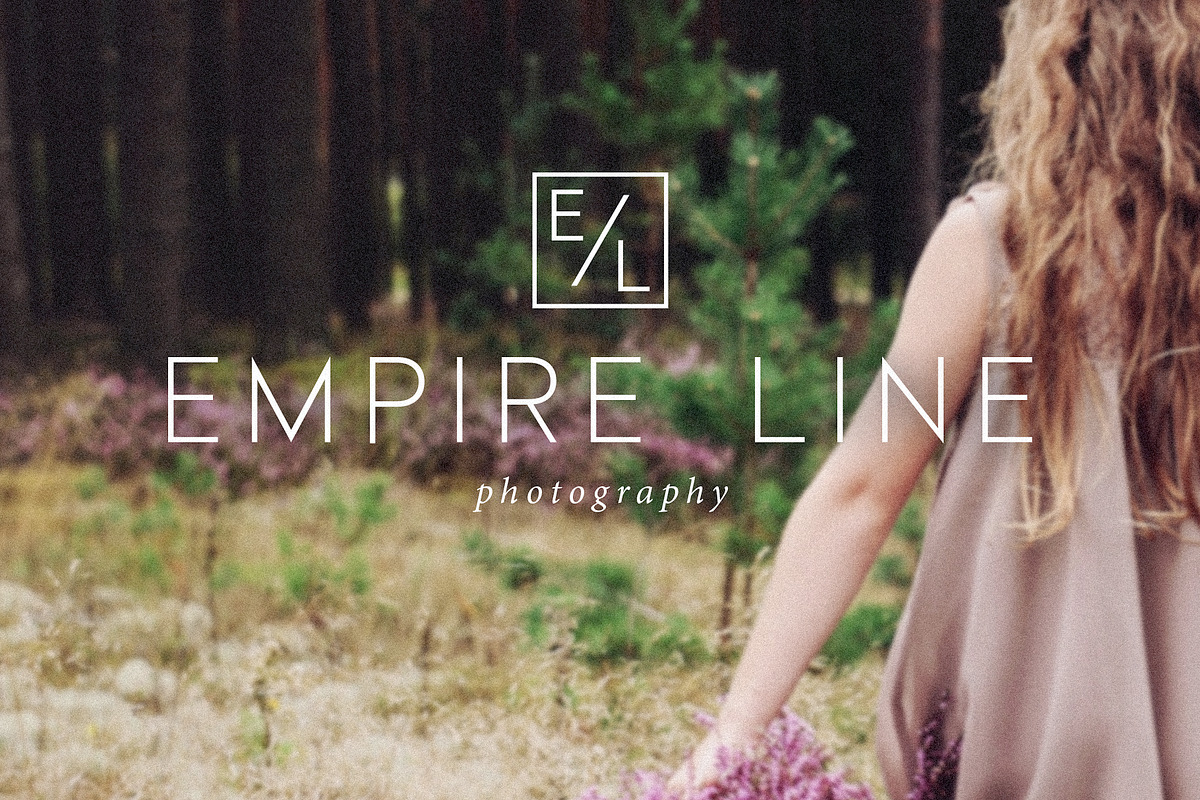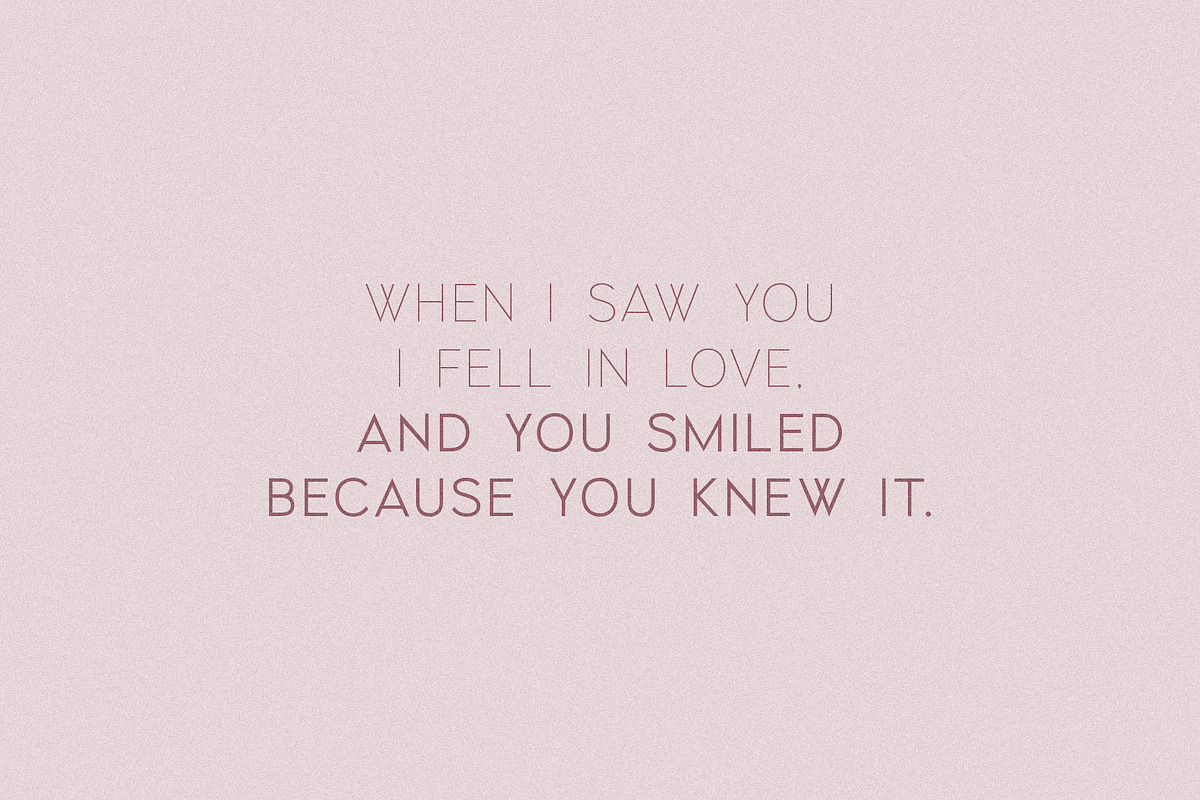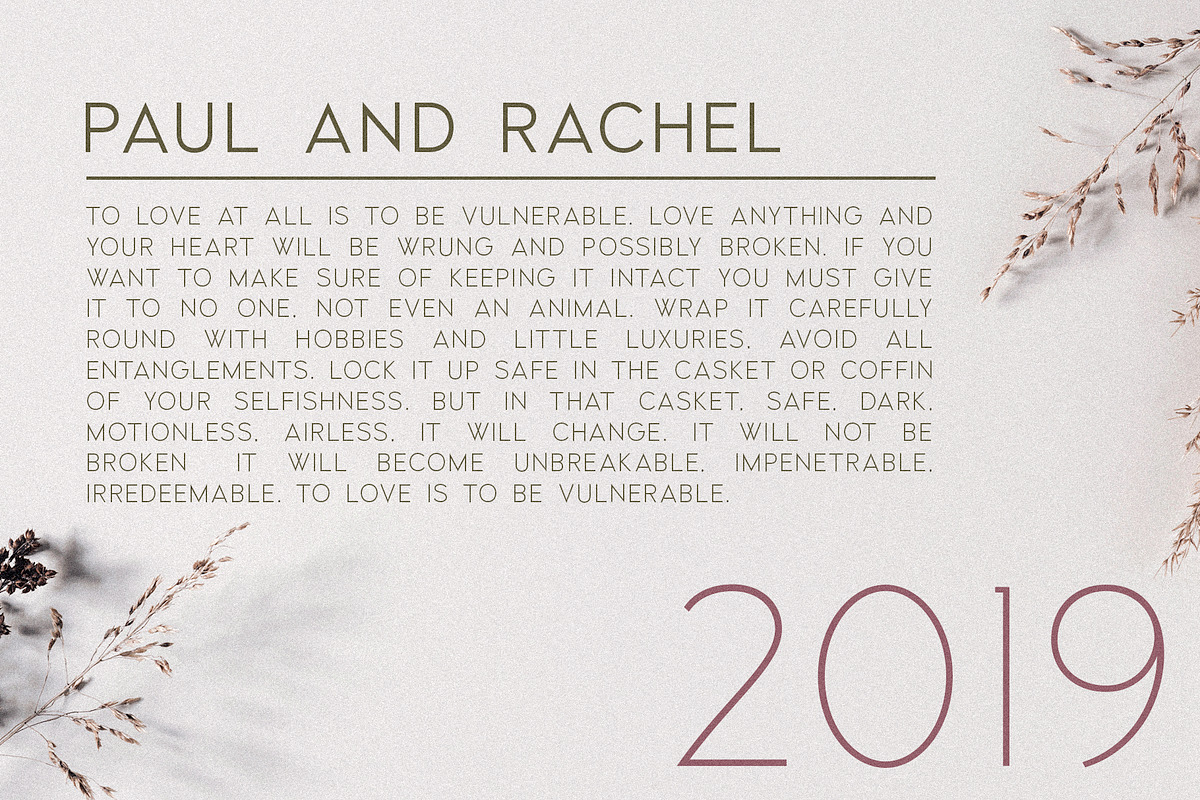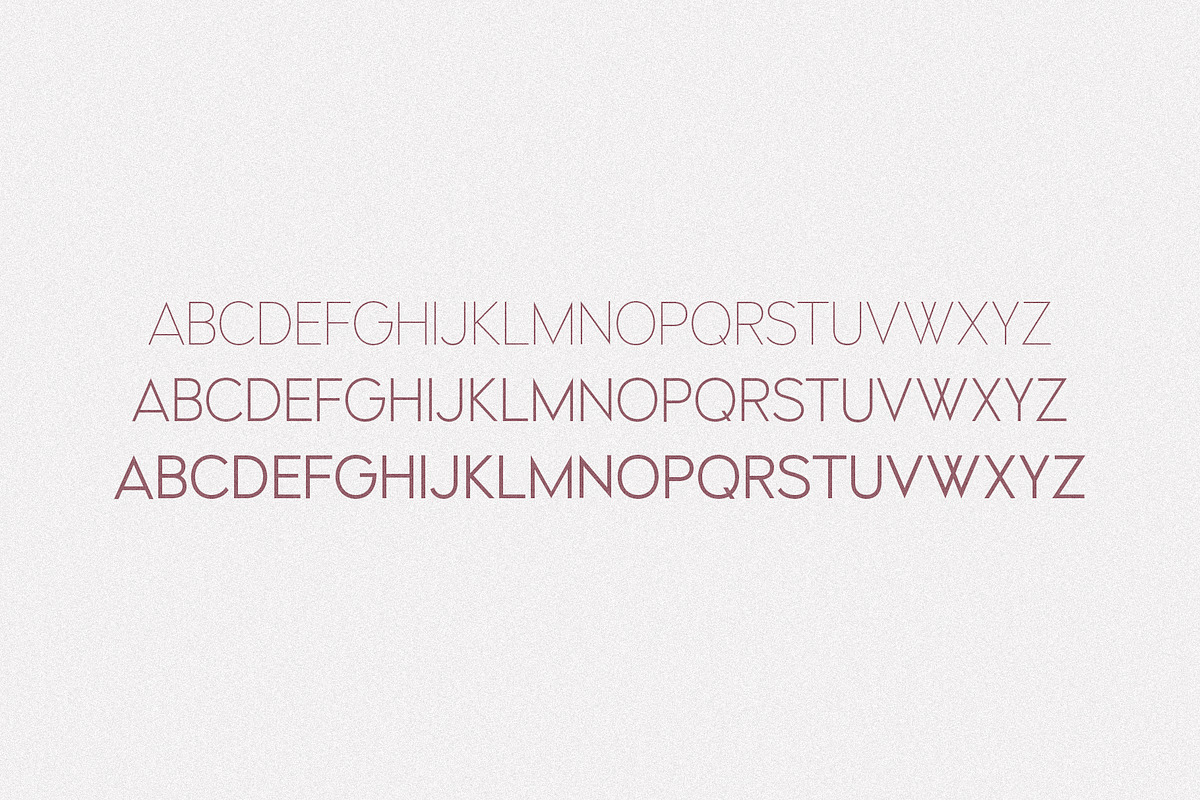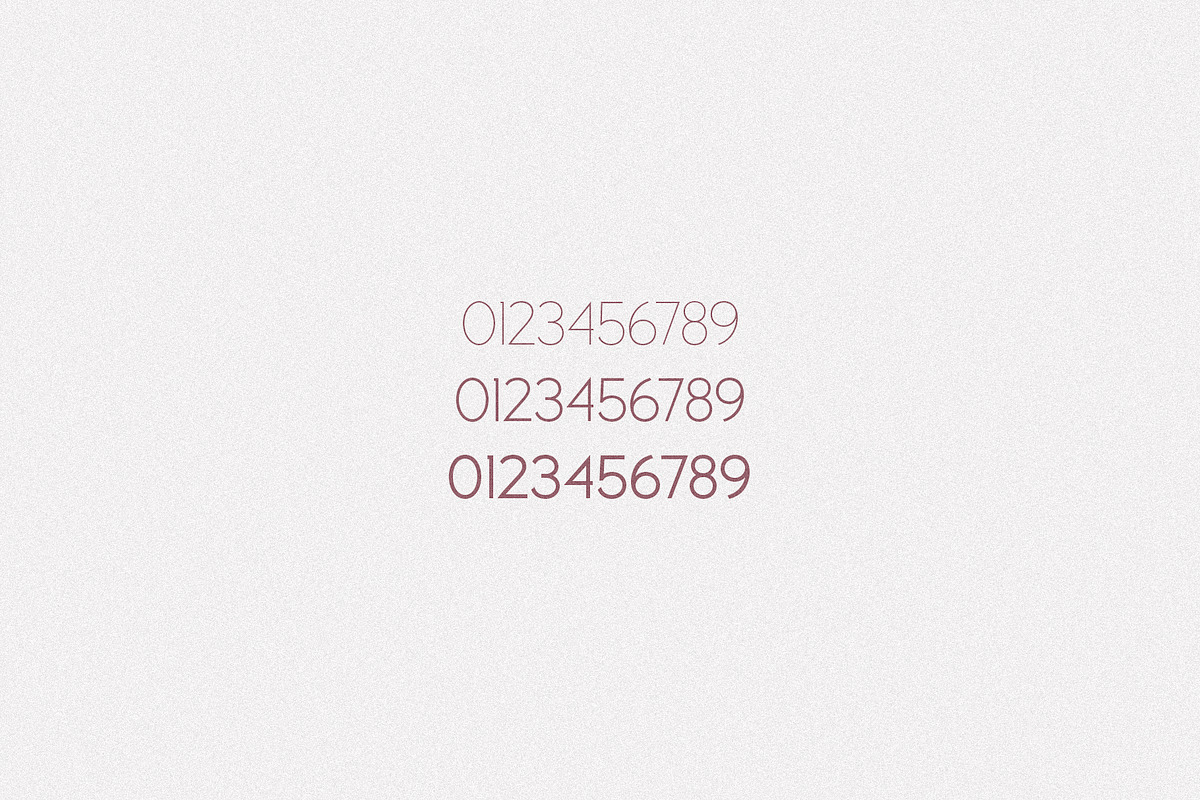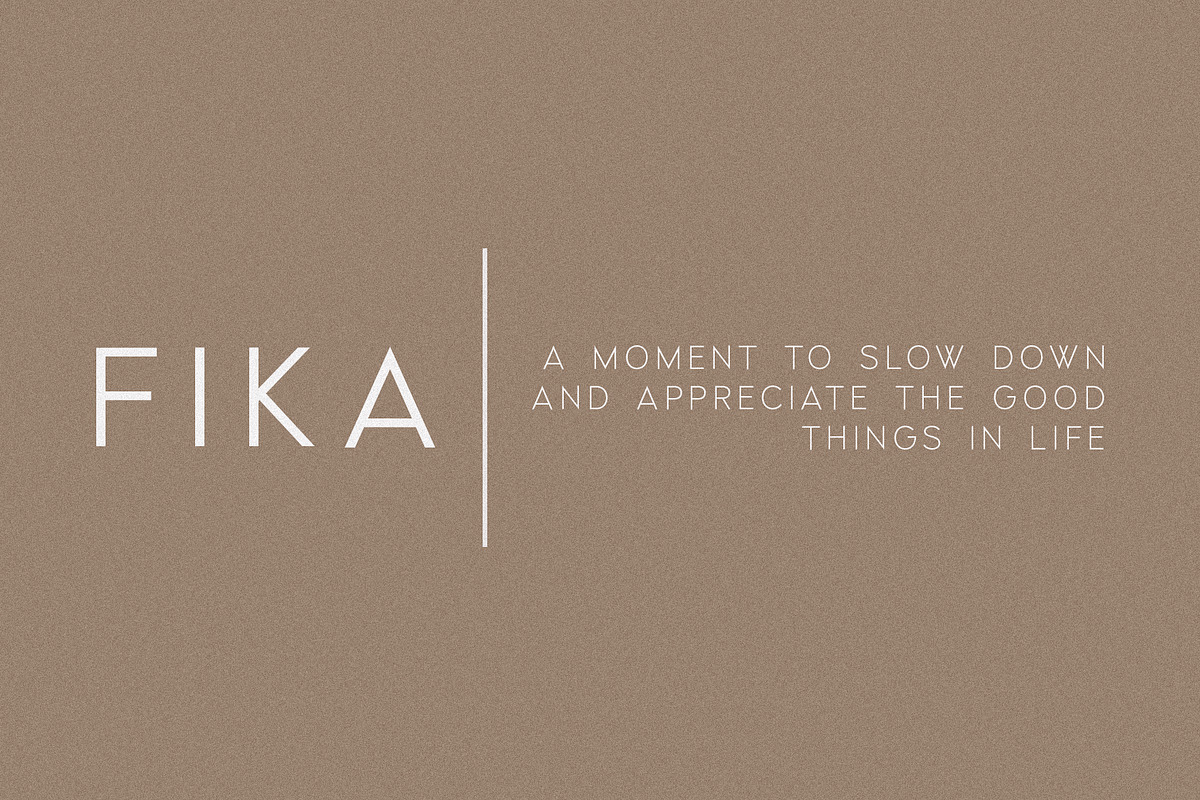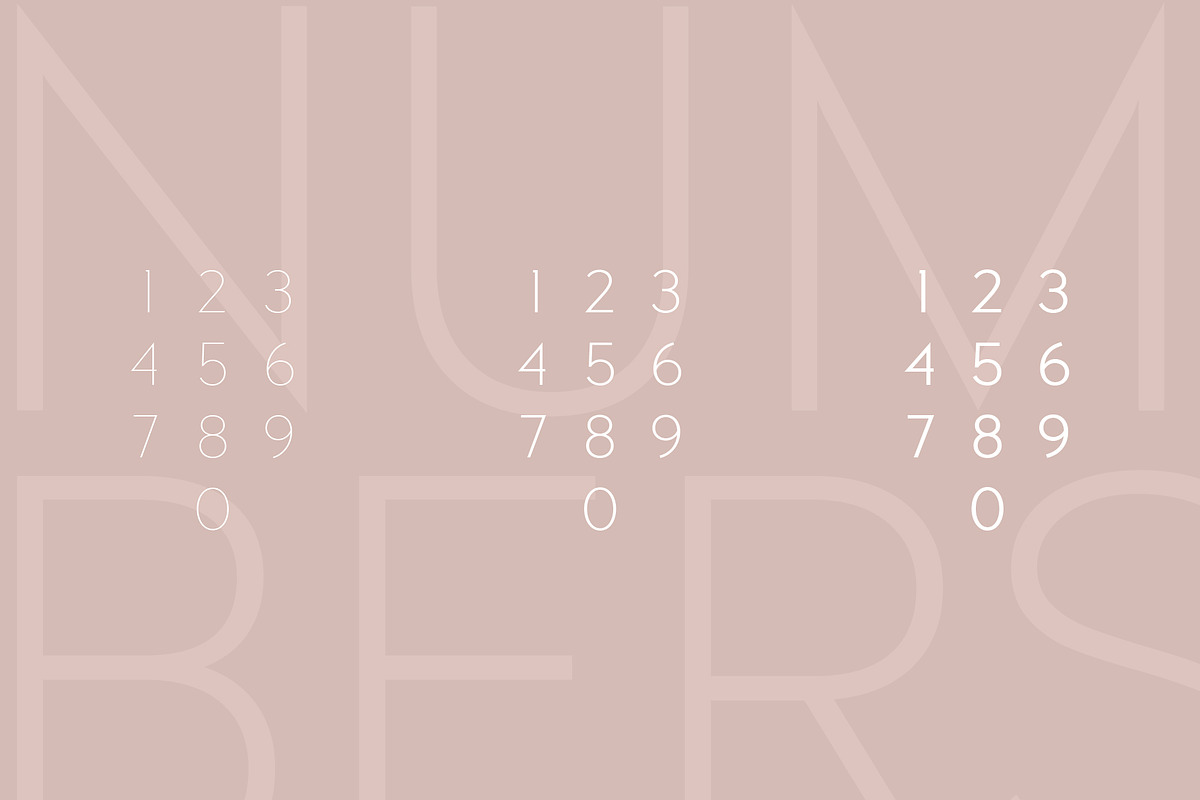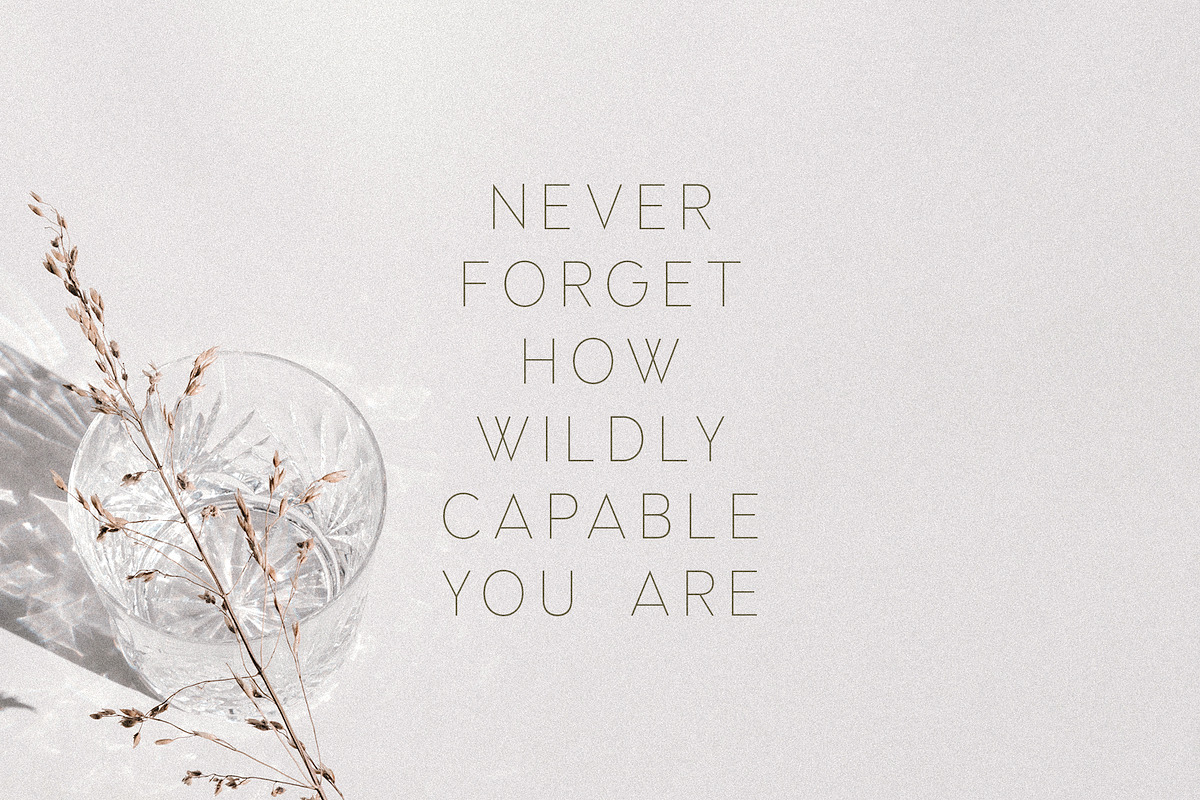
Halifax -UPDATE! | A Minimalist Sans
NEW UPDATE: Now includes lowercase!
Halifax is a minimalist sans serif that comes in three different weights - Thin, Regular, and Bold.
Delicate and romantic, Halifax's clean lines and sharp edges make it a perfect sans for weddings, logos, quotes, print, signage, and more! Plus, the different weights make it a stellar option for branding and web use.
I really love this font with tracking set to 220, but it looks really beautiful with condensed spacing as well.
Halifax includes:
- Uppercase letters
- Lowercase letters
- Three weights (Light, Regular, & Bold)
- Foreign language characters